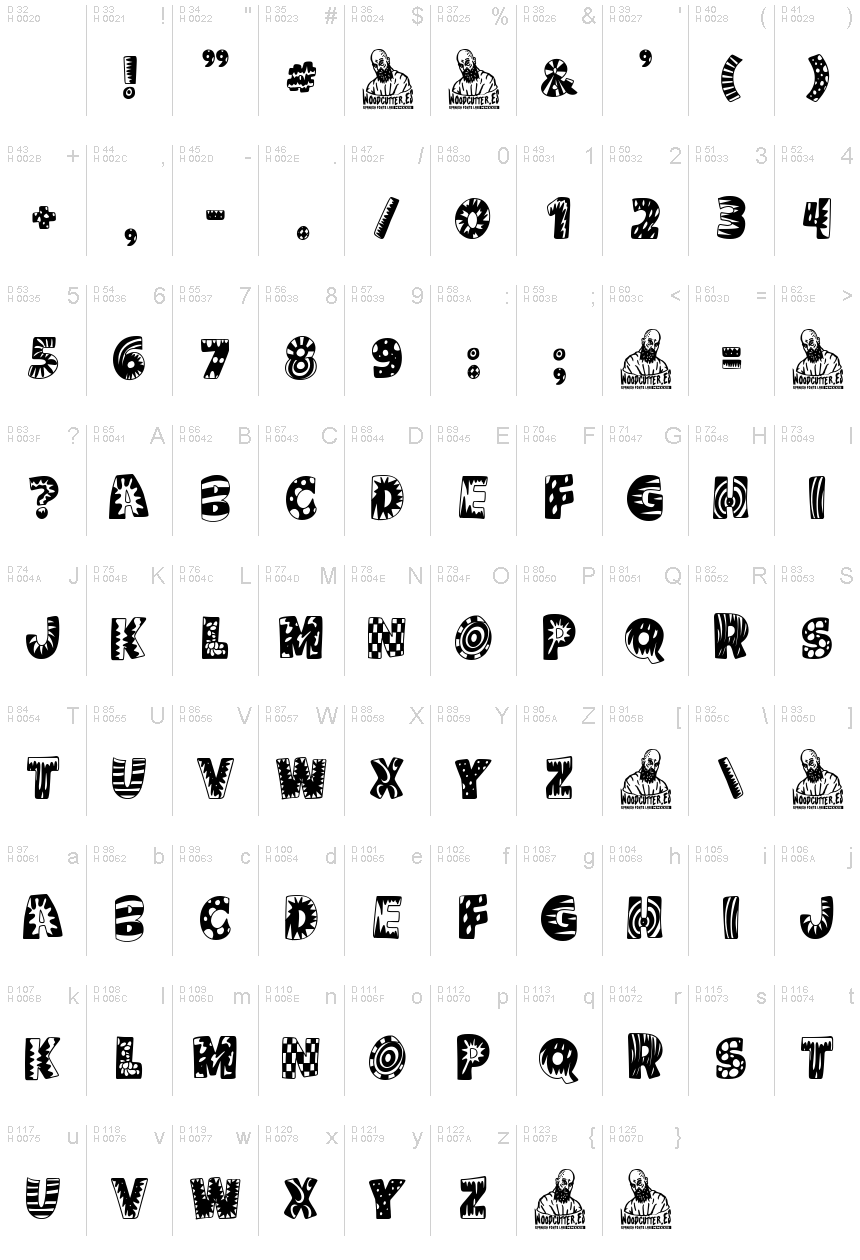
Kids Party Club
Kids Party Club font designed by Woodcutter is a free typeface for personal use that features bold lettering with black and white marks within each letter, adding to its whimsical personality. Playful accents along each letterform make the characters valuable to any creative font collection. Enjoy your time designing or crafting in any way when working with this typeface today!
Kids Party Club is ideal for movie titles, storybooks, birthday invitations, children's toys, kid’s games, activity books, planners/journals/diaries, coloring books or kits (digital/printable), birthday cards/postcards/invitations (DIY designs), kids' educational apps/games/websites/products/projects. Use it in all types of project where you want a fun childish vibe!